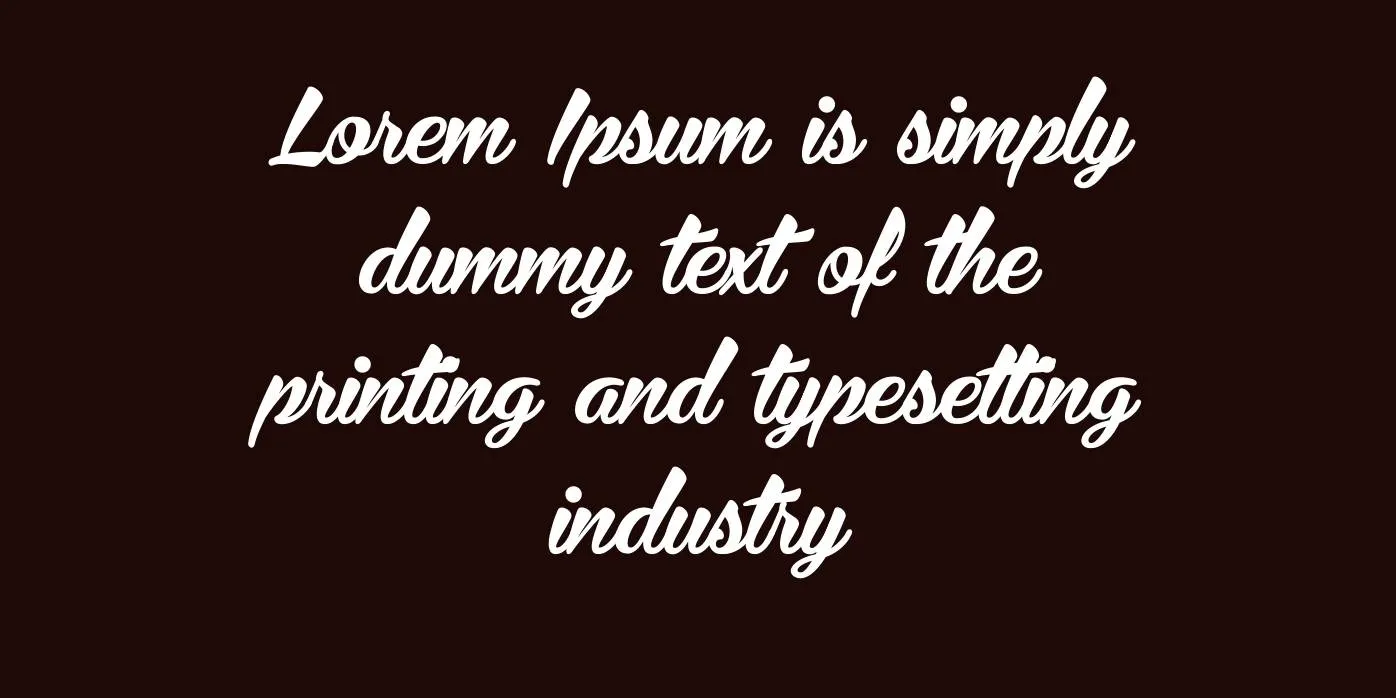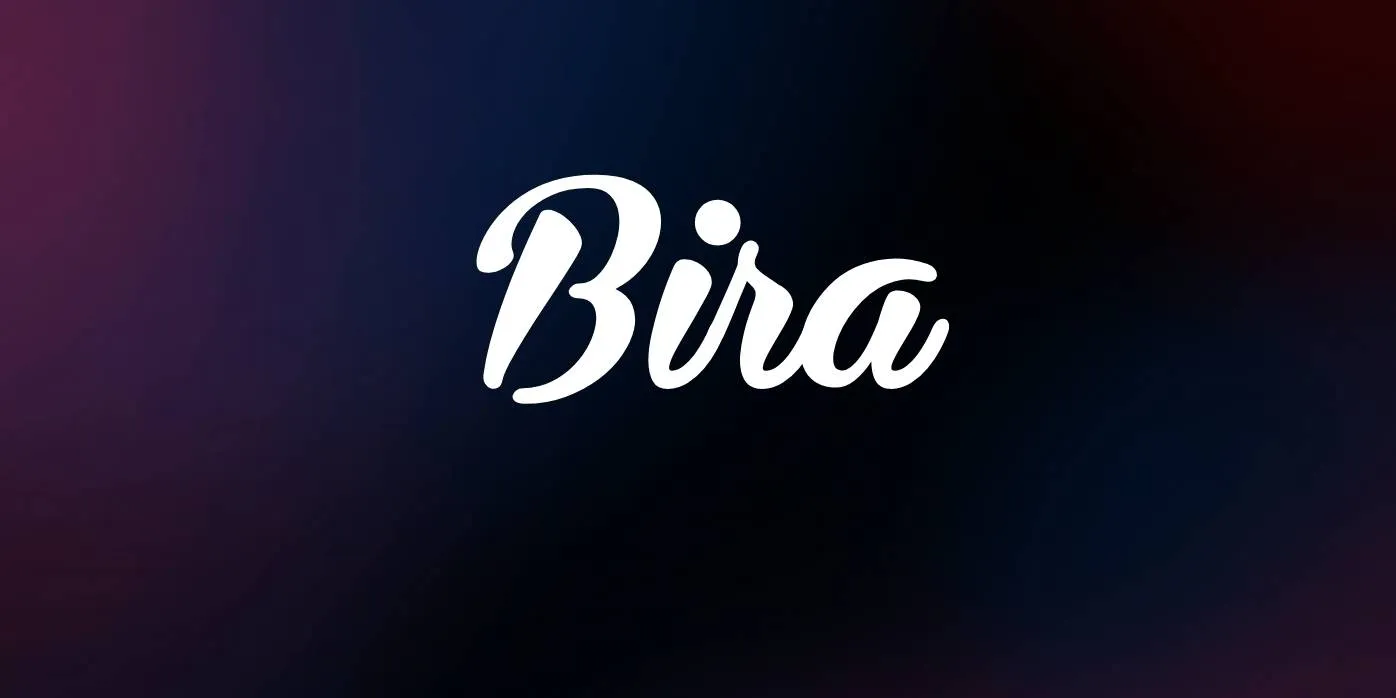
Bira Font
Mans Greback designed Bira Font. The texture is known as the Script typeface. This typeface has bold and stylish characters that are more readable and attention-catching than other fonts. The texture is also used by several designers and brands.
The tool is effortless because you do not need to download and install the font. The properties of the characters of this typeface include bold, stylish, and highlighted texture. The characters include special letters, capital letters, lowercase letters, numbers, punctuation, and some international letters. It supports both Opentype and Truetype formats.